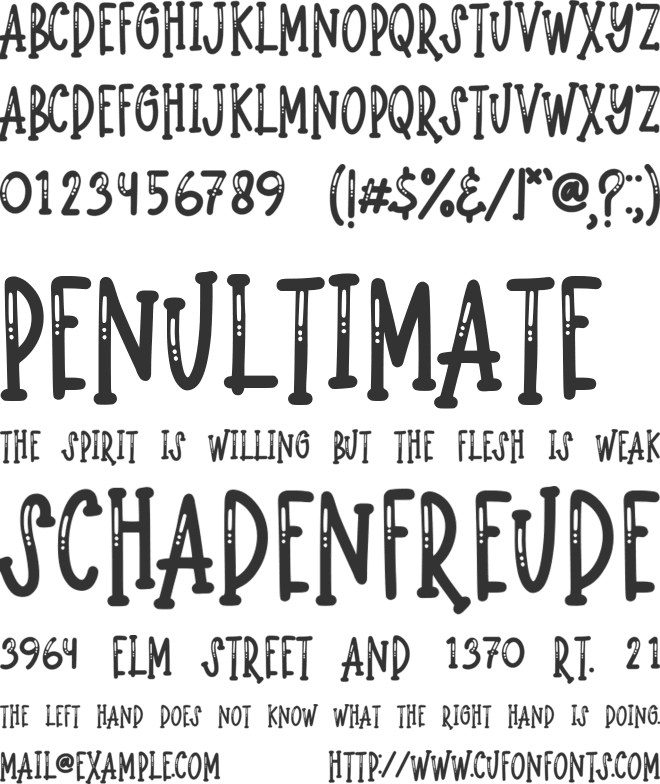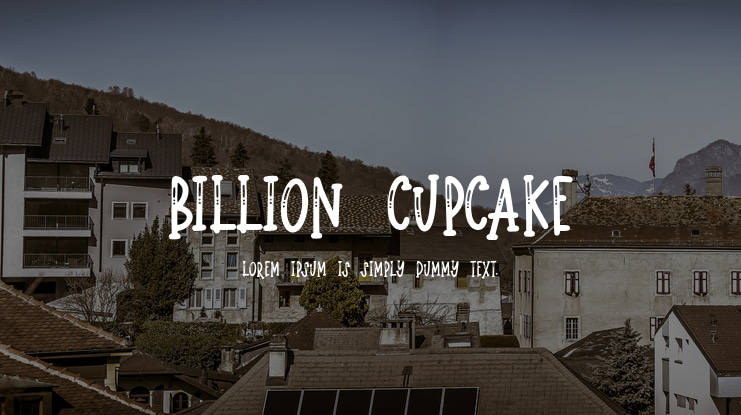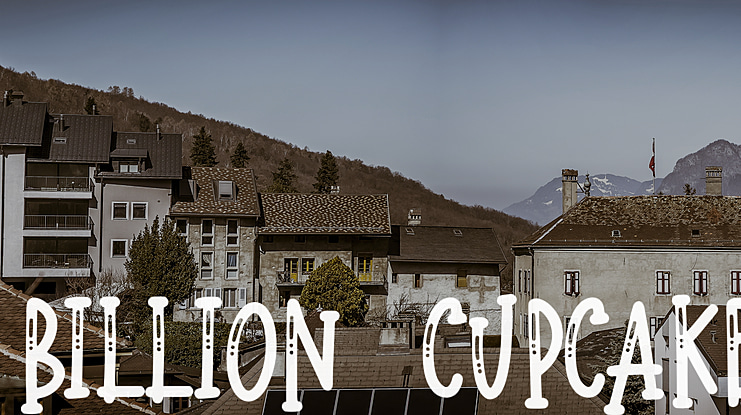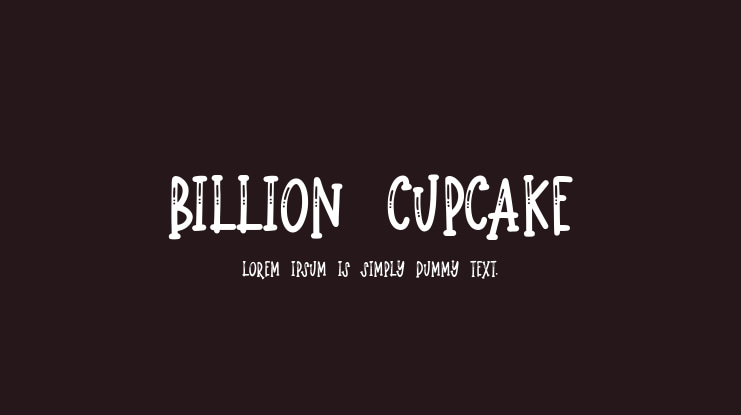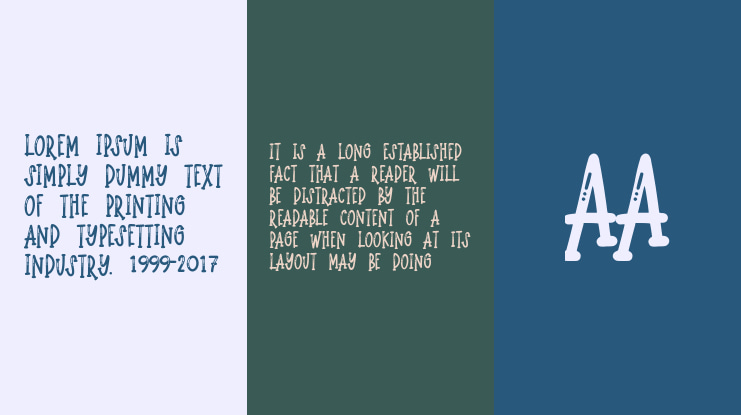
Billion Cupcake Font
Billion Cupcake is a Bold Handwritten Font
Billion Cupcake is perfect for product packaging, branding project, megazine, social media, wedding, or just used to express words above the background.